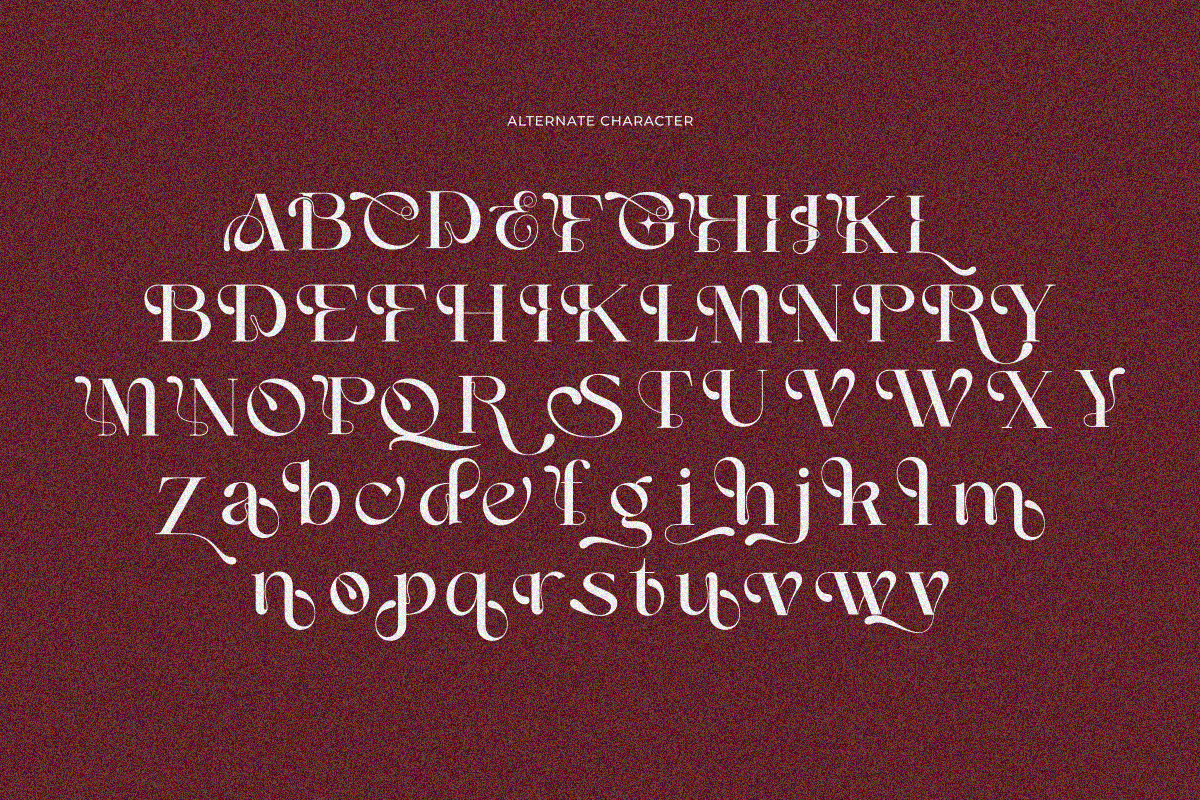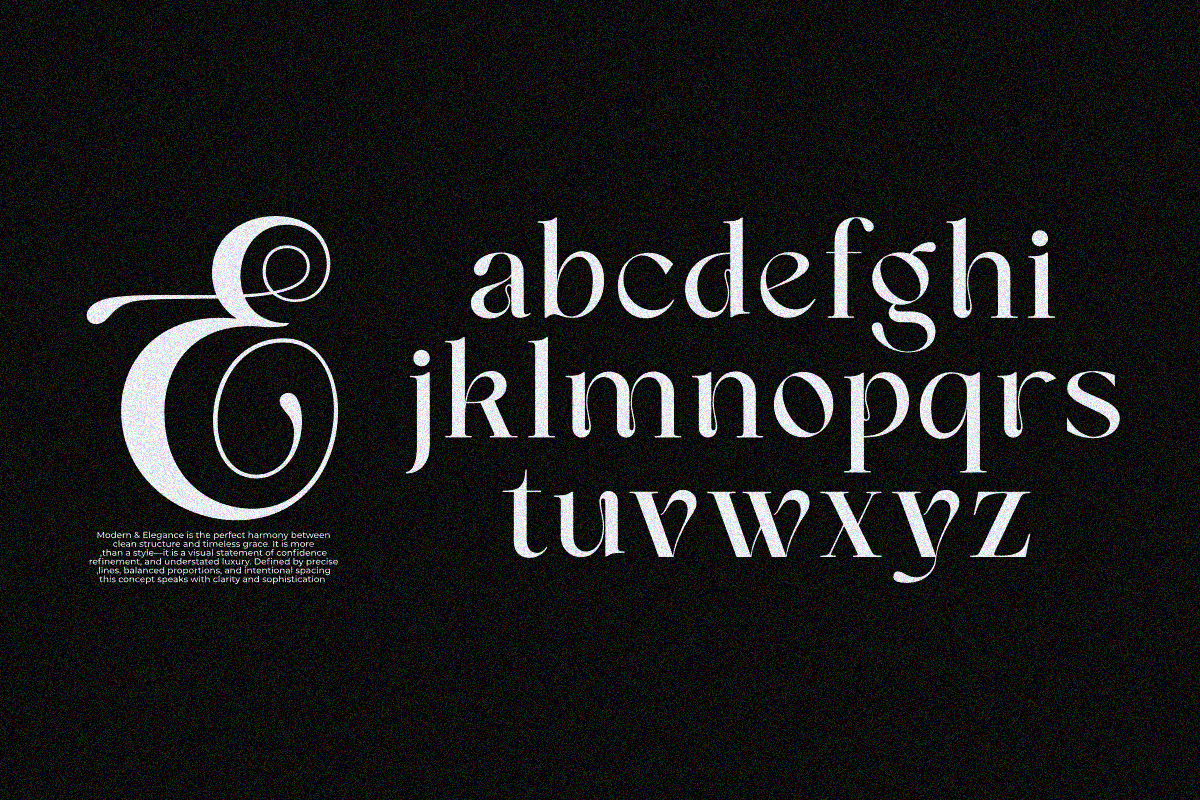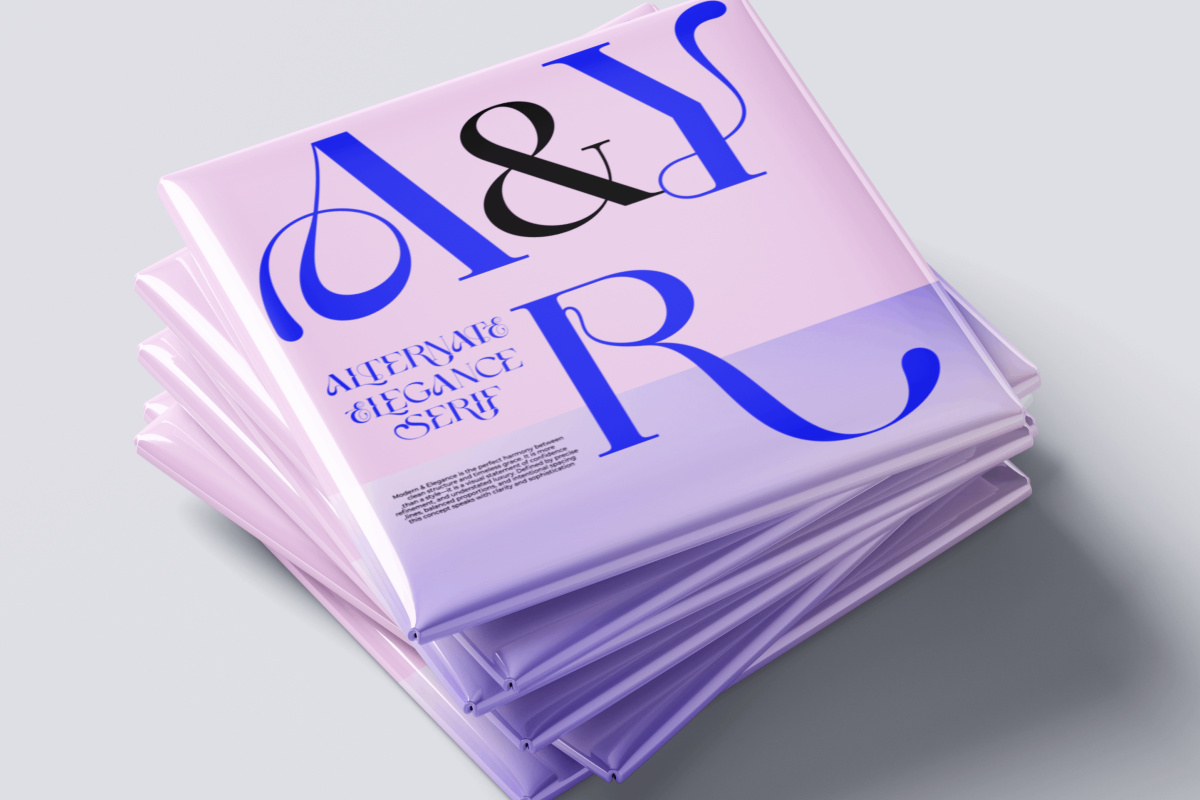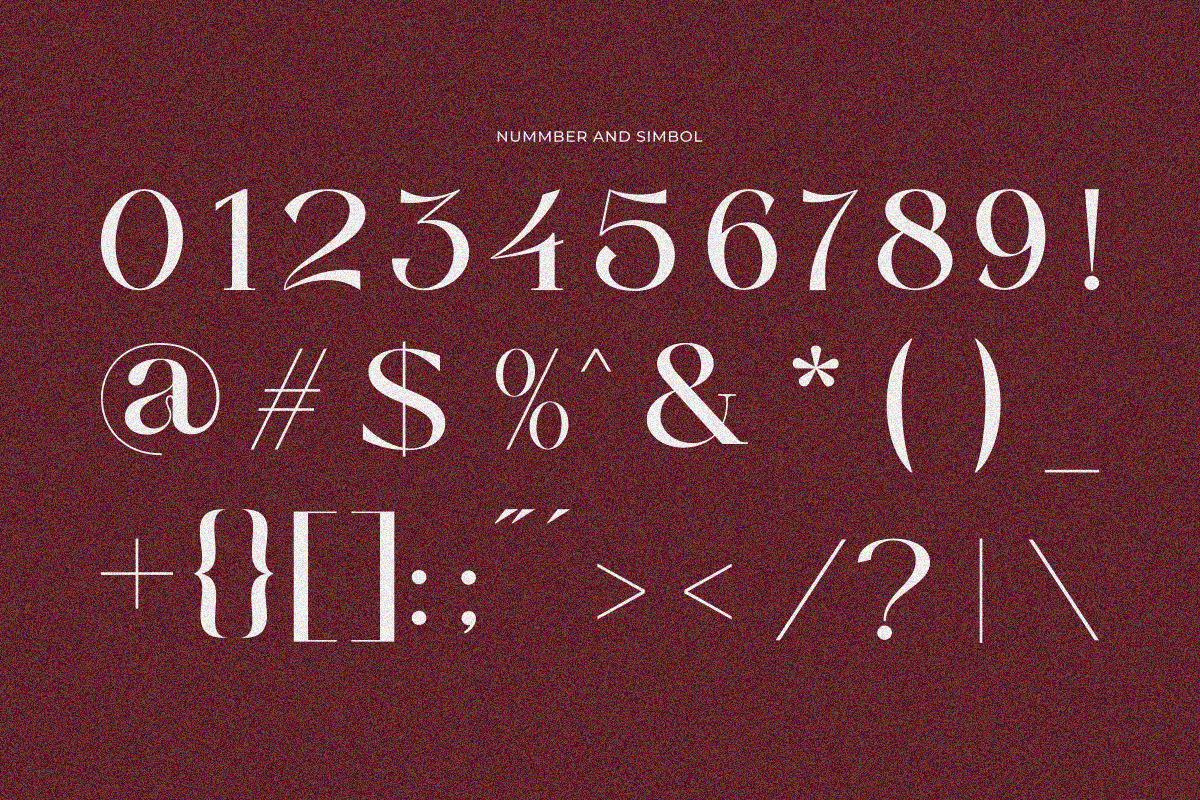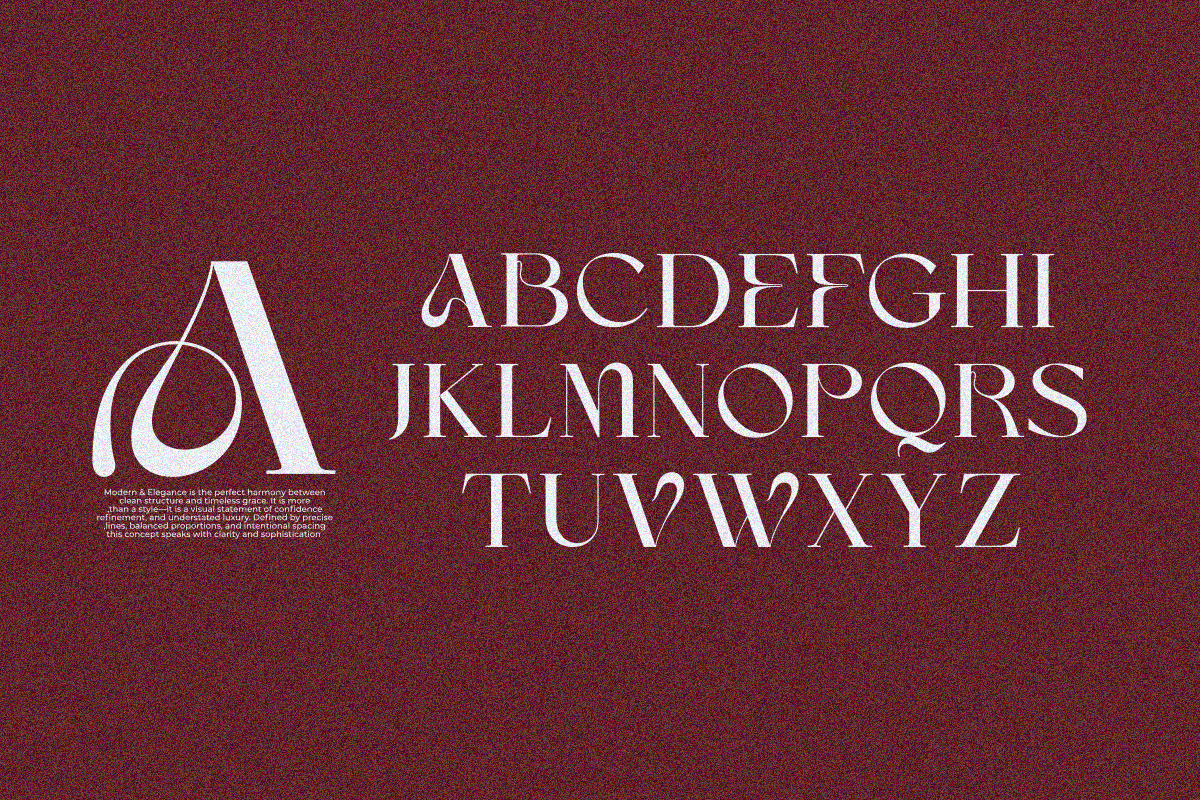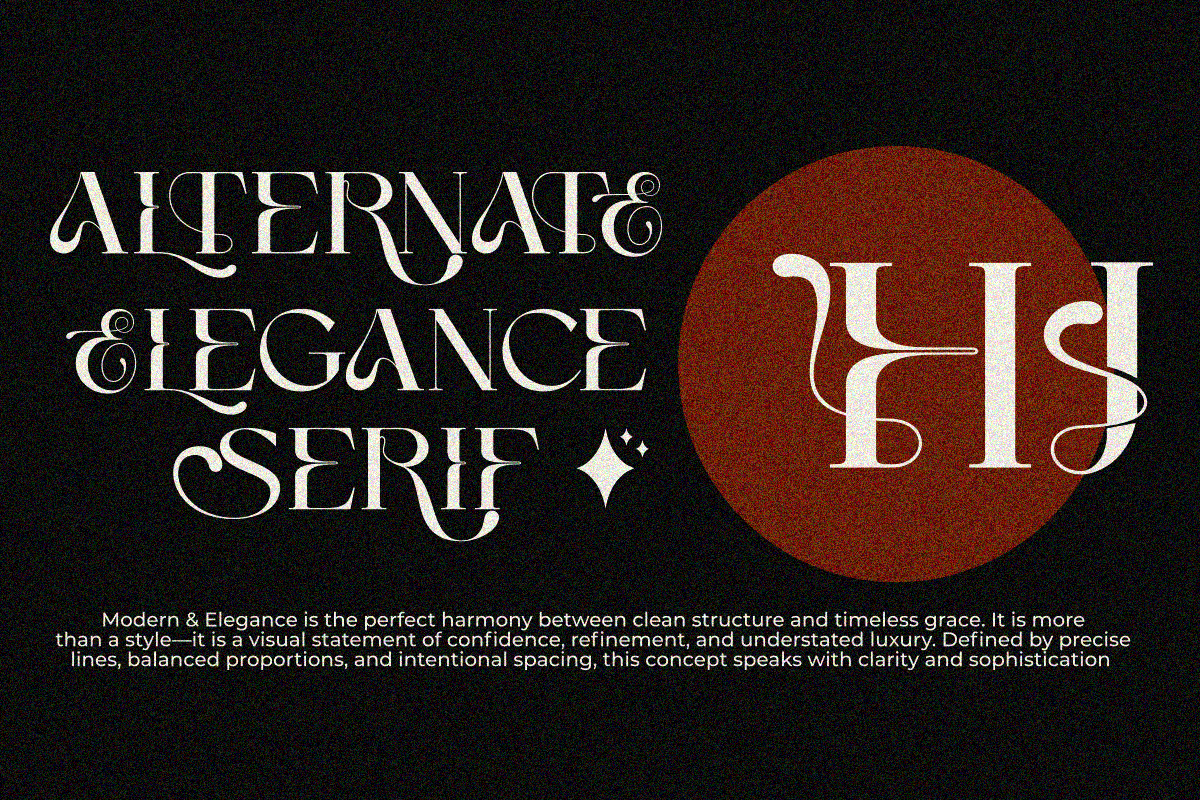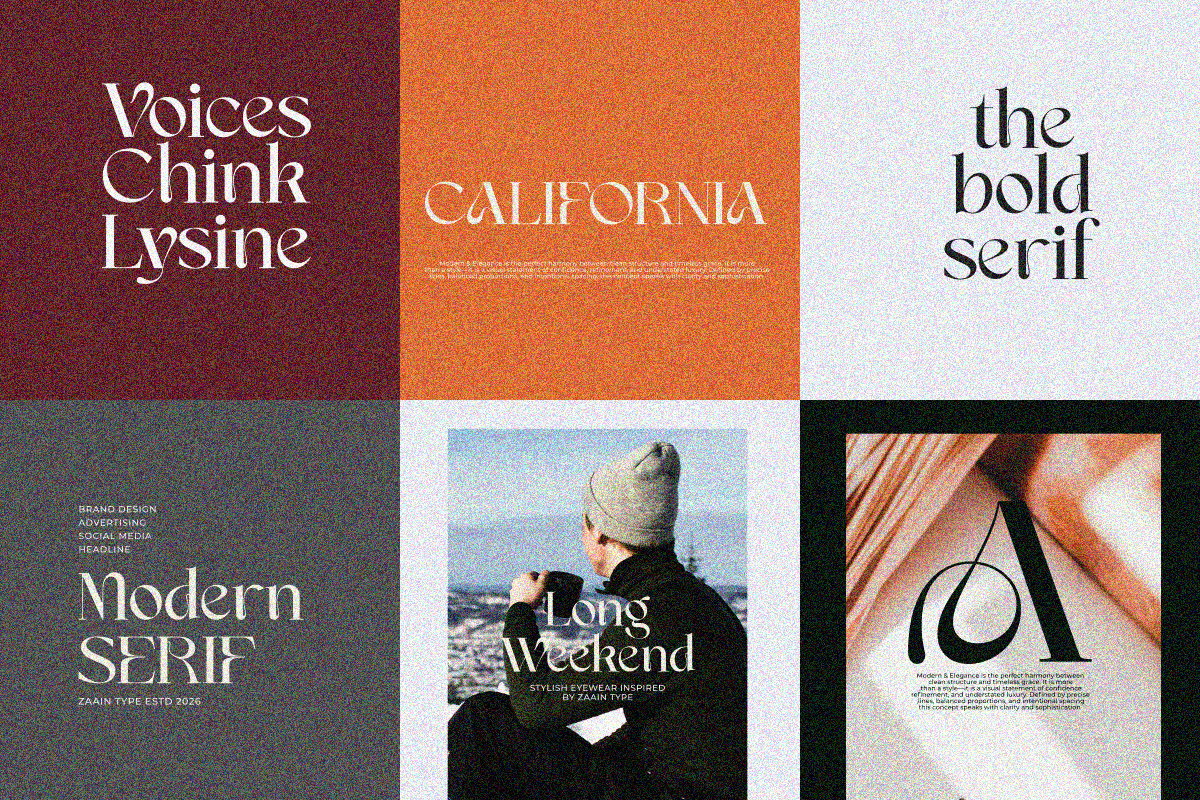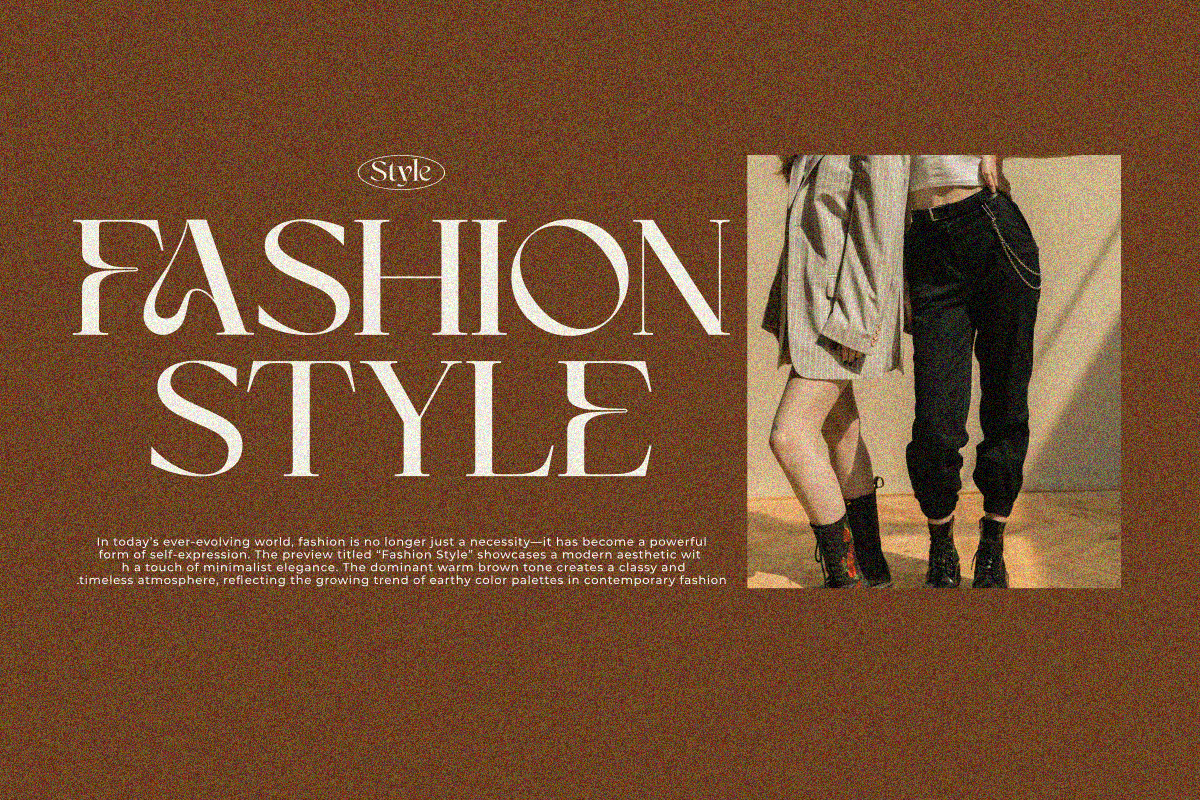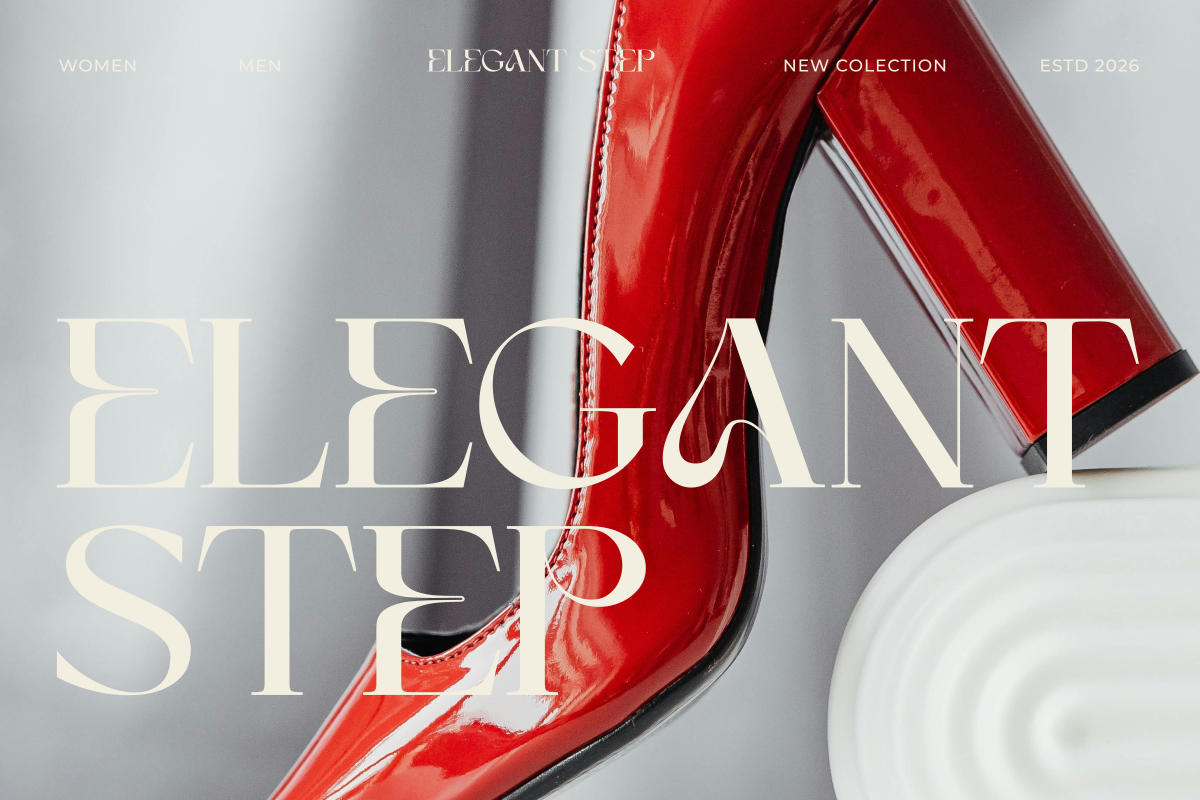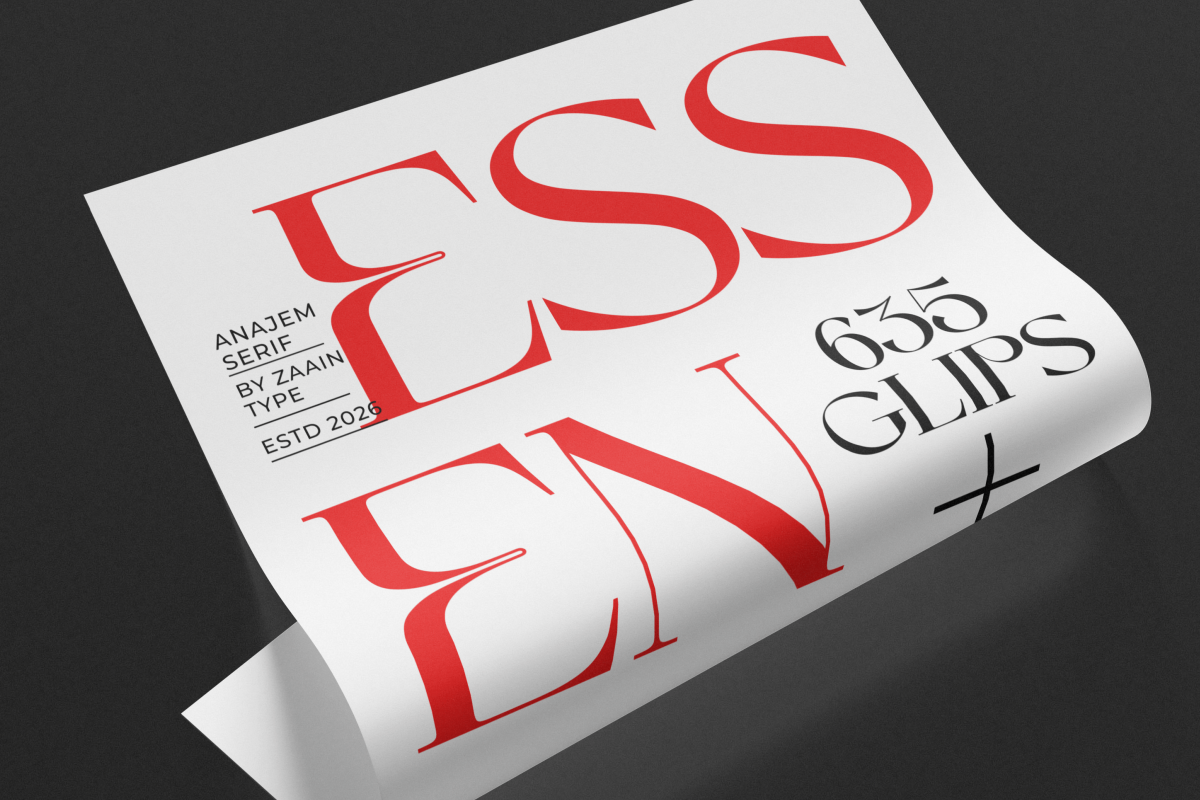
Anajem Serif
Anajem Serif is a serif typeface that blends classic elegance with a subtle modern touch. Designed with balanced proportions, gentle stroke contrast, and refined yet distinctive serifs, this font delivers a professional, warm, and highly readable appearance across various sizes.
Its character stands out through clean letterforms and a smooth visual rhythm, making it ideal for editorial uses such as books, magazines, and branding projects that aim for a sophisticated and timeless look. The classic nuance conveys trust and credibility, while its modern refinement ensures relevance across both print and digital media